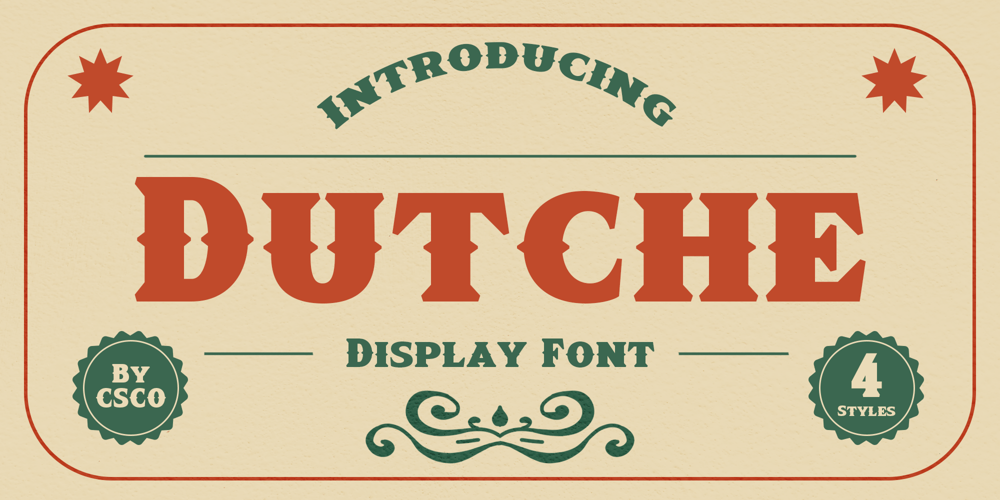
Dutche Font Family was designed by Trio Nazzar Saputra, Wahyu Hadi Yuana and published by Craft Supply Co. Dutche contains 4 styles and family package options. Dutche: Boldly Defined Meet Dutche – Display Serif, where boldness takes center stage. This thick, low-contrast serif font stands out. Added serifs on stems enhance its masculine aura. It’s eye-catching, making a statement with every word.Masculine Appeal Dutche offers a sturdy, masculine look to your text. The extra serifs bring a unique toughness. Its bold nature catches the eye immediately. This font doesn’t just say; it declares. Furthermore, it works great for headlines and logos.